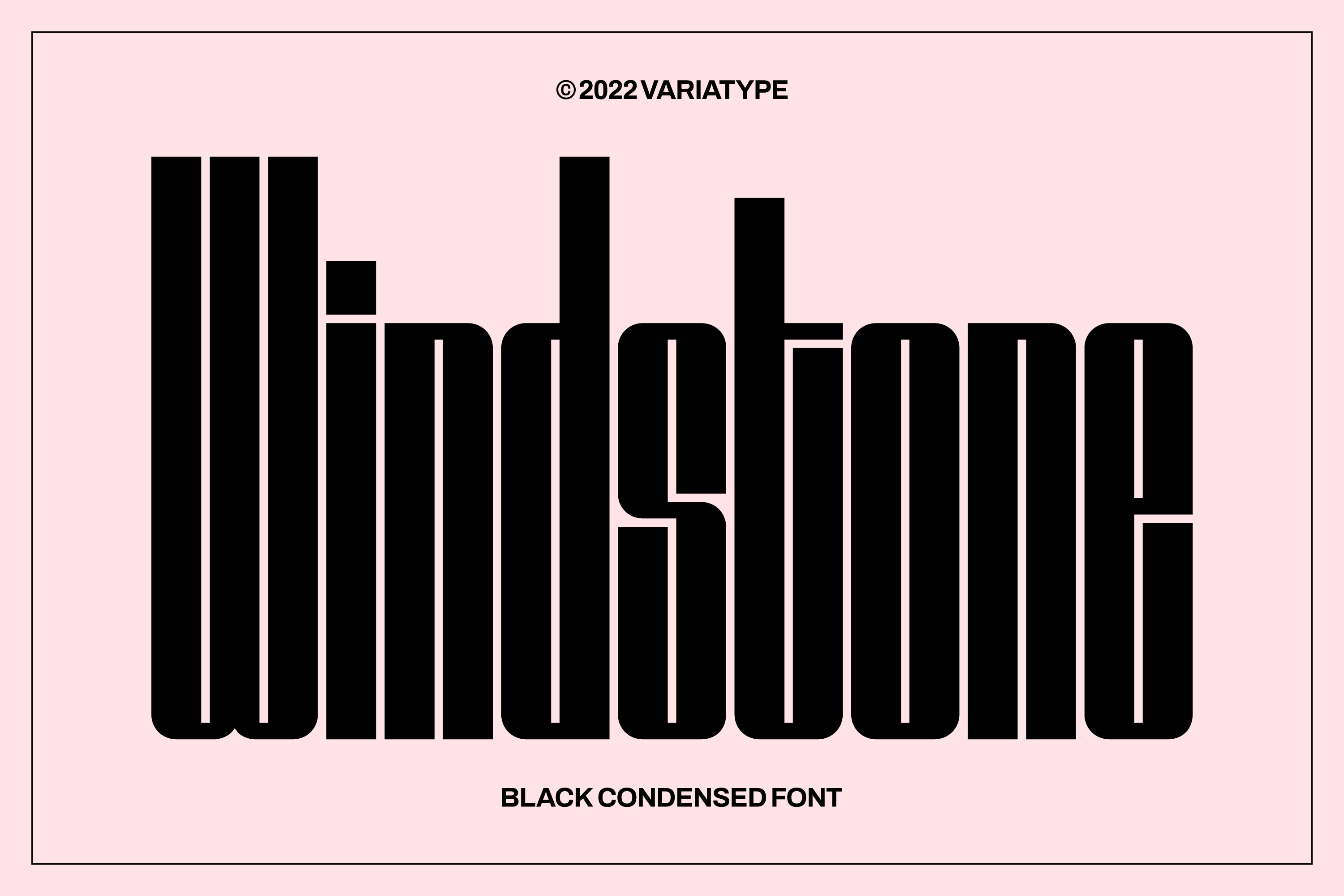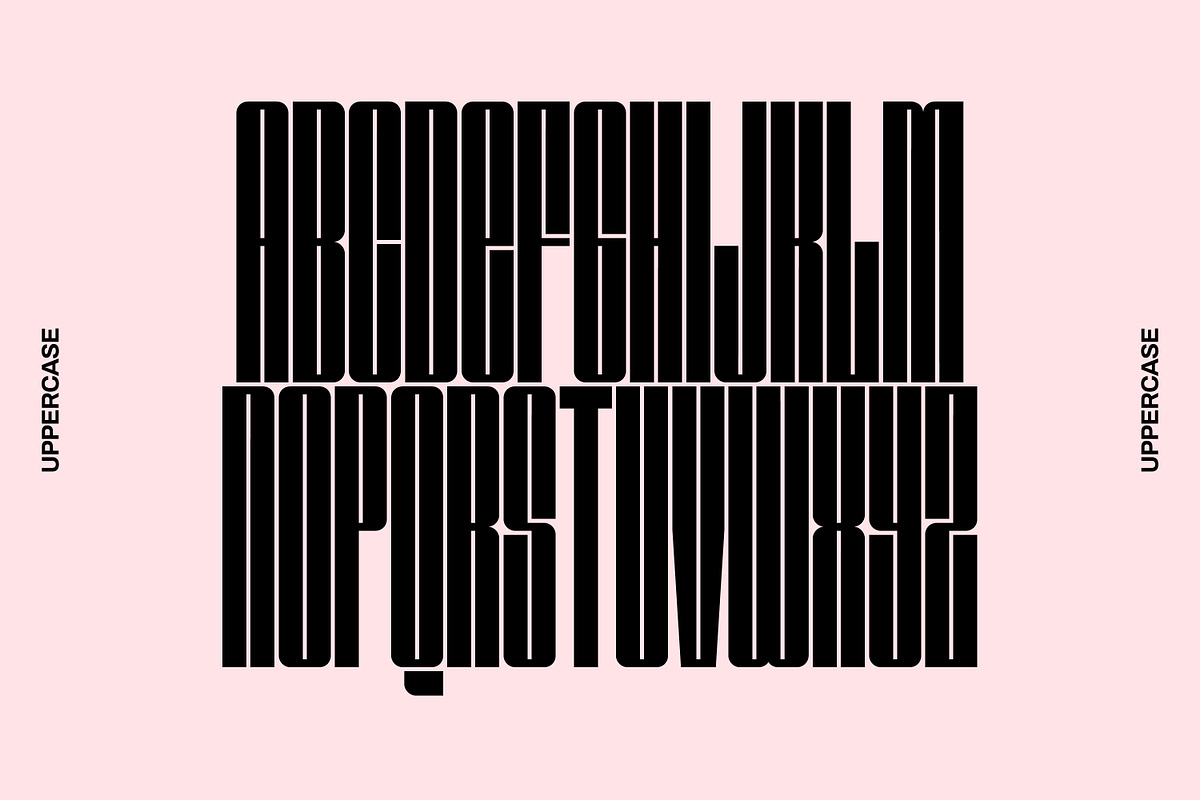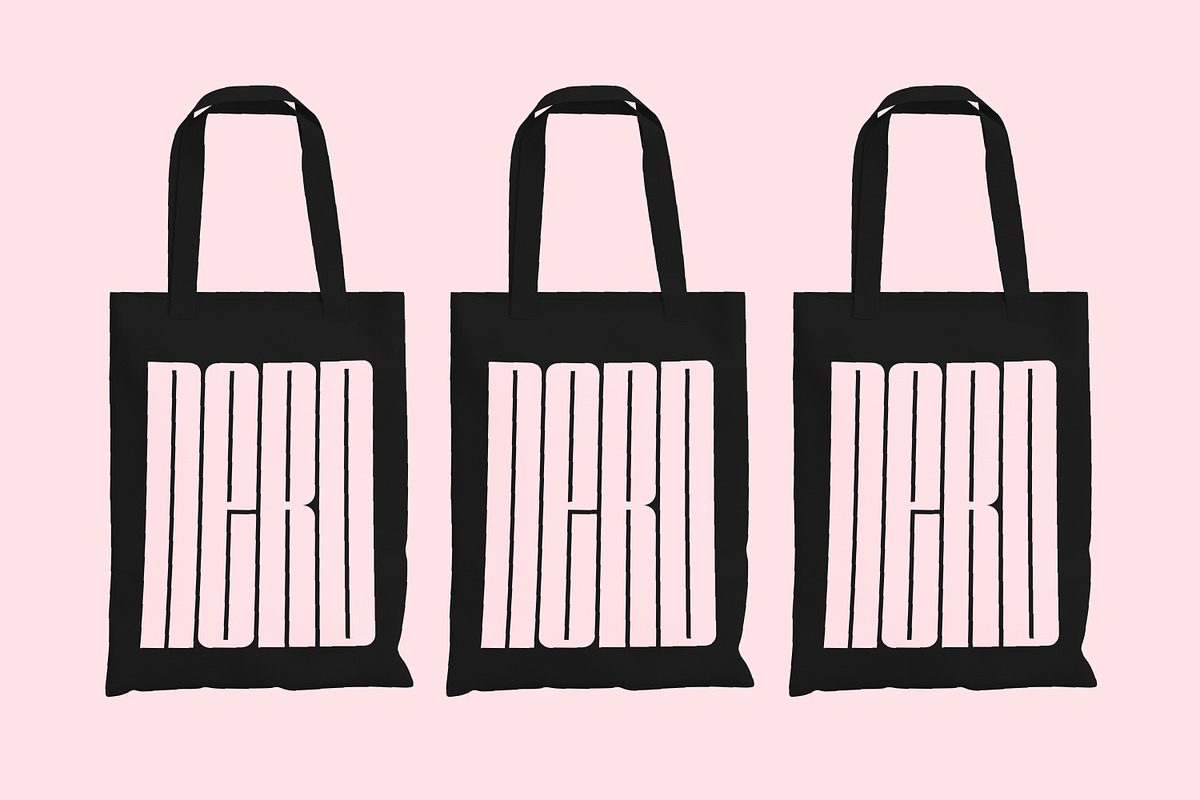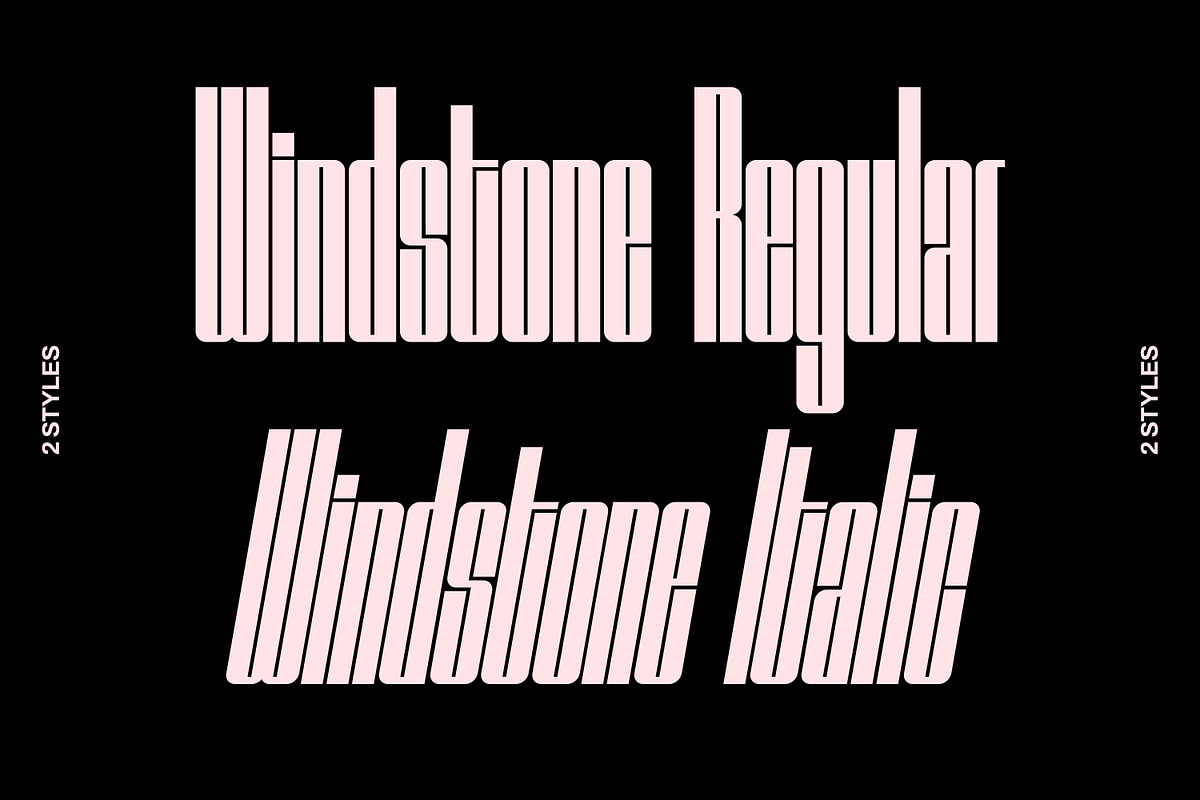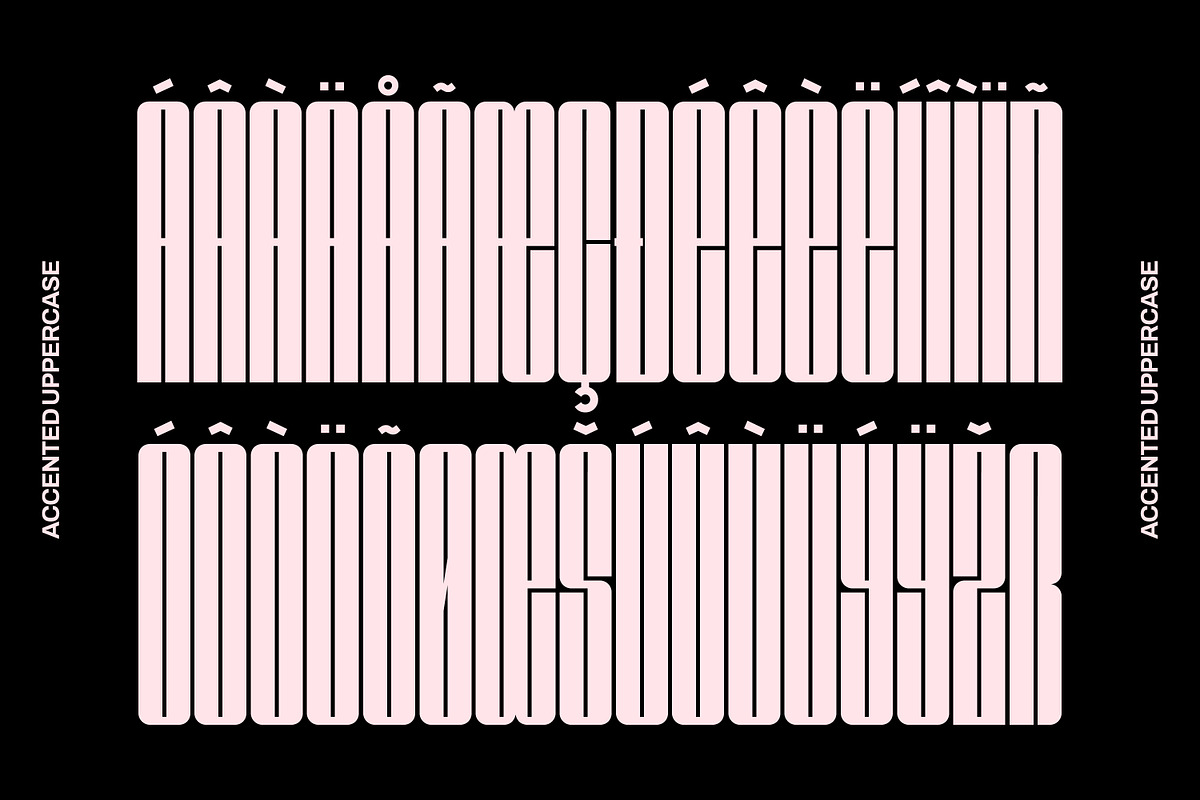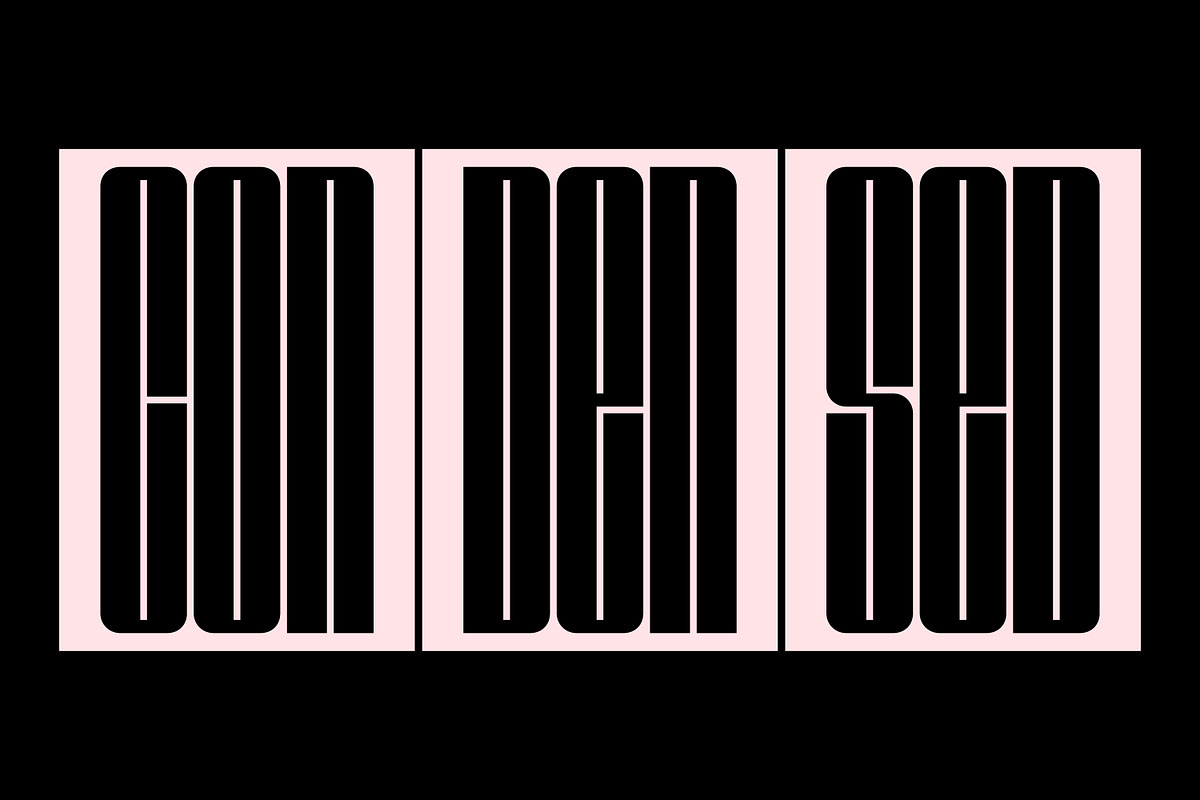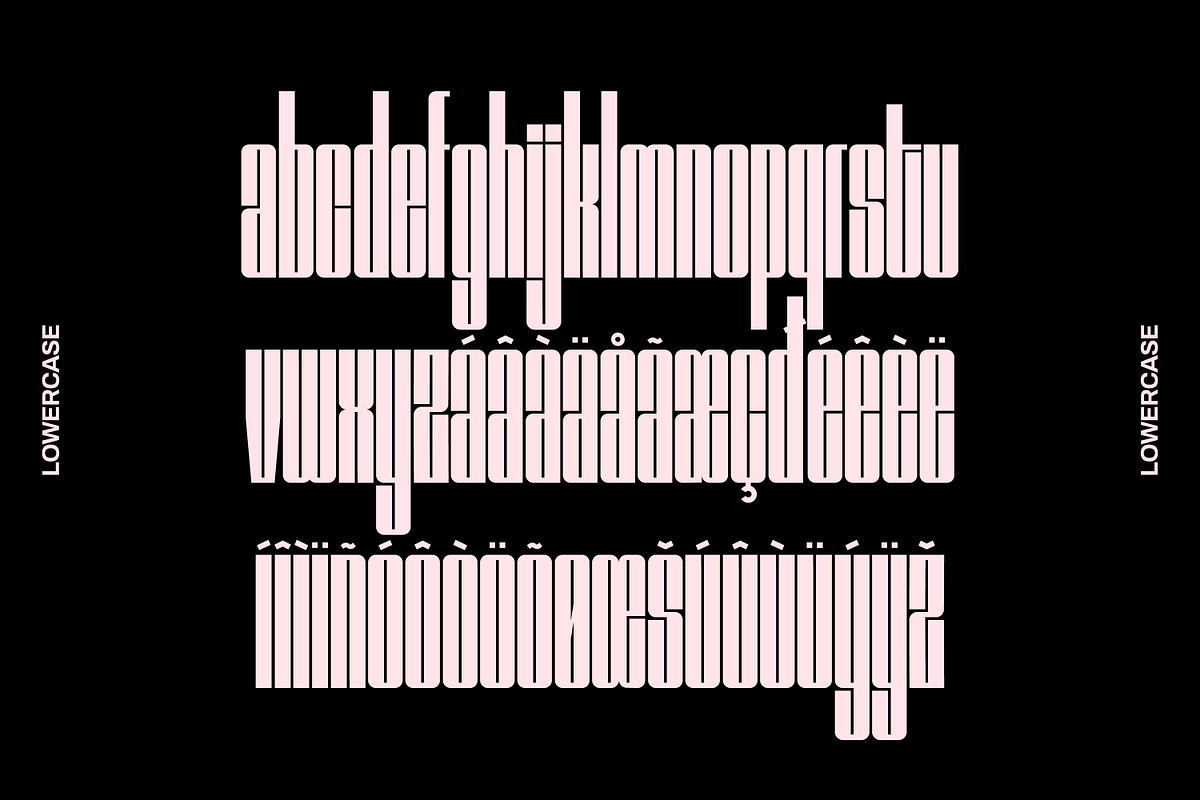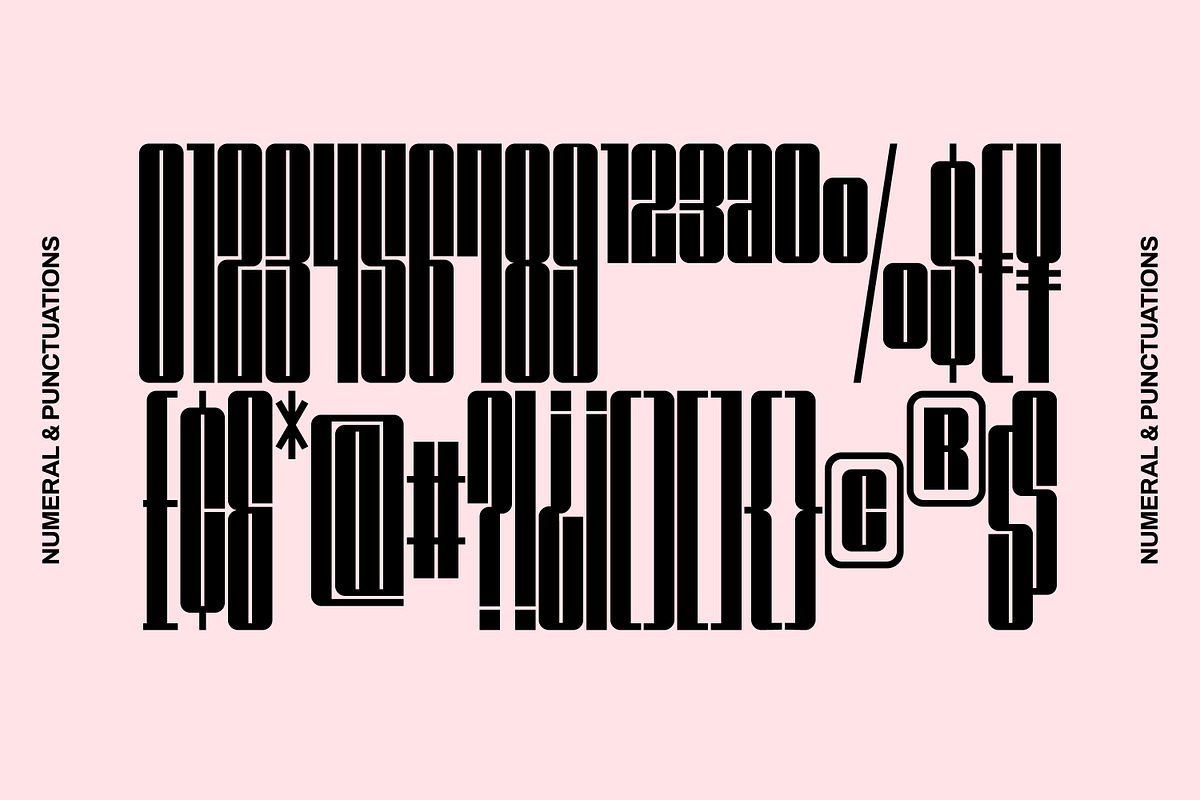
Windstone - Black Condensed Font
Windstone is a Black Ultra Condensed display sans font published by Variatype, available in regular and italic.
Additional Accents
66 Languages
Kerning